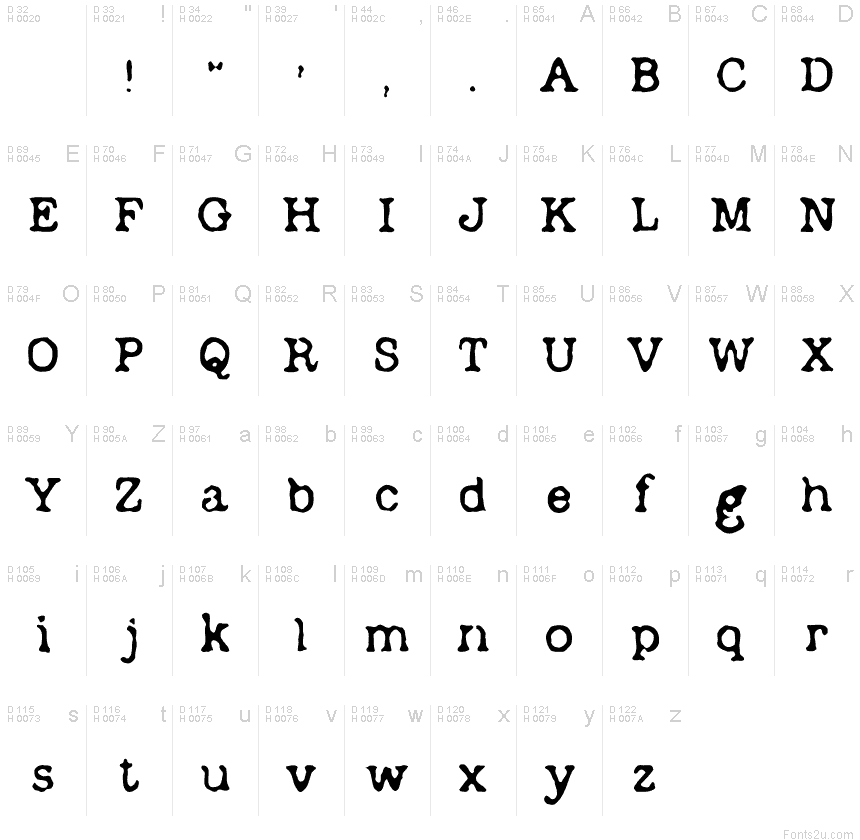
Depot
Depot font is a free eroded display typeface that looks like it was stamped in thick, inky blobs and left to bleed at the edges. Each letter feels slightly warped and hand-cut, with soft, lumpy curves and rough contours that give it a gritty, underground energy. There’s a playful menace to Depot—friendly at first glance, but with enough distortion and texture to keep things uneasy and raw.
Using Depot, this free font instantly gives titles and logos a scuffed, DIY attitude that works beautifully for horror posters, escape room branding, indie album covers, zines, haunted attraction signage, and moody game titles. The wide, chunky shapes hold up at large sizes, so let it shout in headlines and pair it with a clean, narrow sans serif for body text to keep layouts readable but tense.